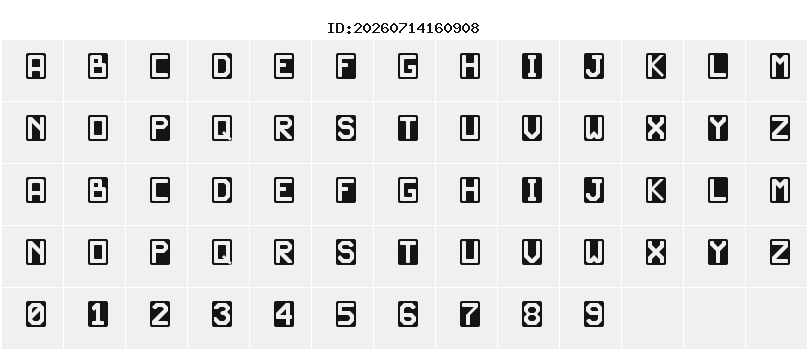
• Font Name: JD Scarabeo Light
• Full Font Name: JD Scarabeo Light Regular
• Designer: Jecko Development
• Description: “JD Scarabeo Light” was built with FontStruct
About JD Scarabeo Light.ttf
JD Scarabeo Light.ttf is a modern, elegant sans-serif font designed for ultimate readability and visual harmony. Perfect for branding, headlines, web design, and print materials.